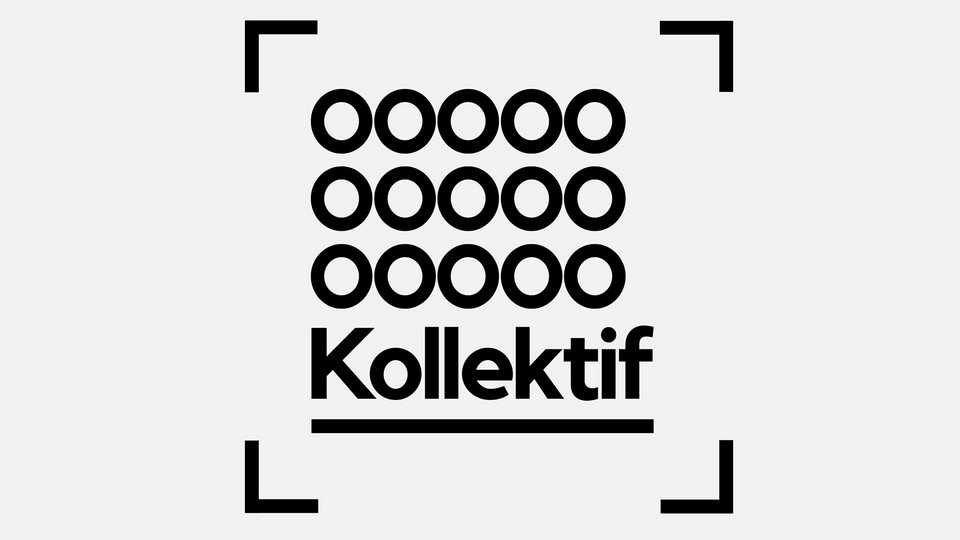
Download Kollektif typeface, a geometric font family in two weights and styles, designed as an alternative to 21 century low-contrast and clean typefaces
Designer: Doğu Kaya